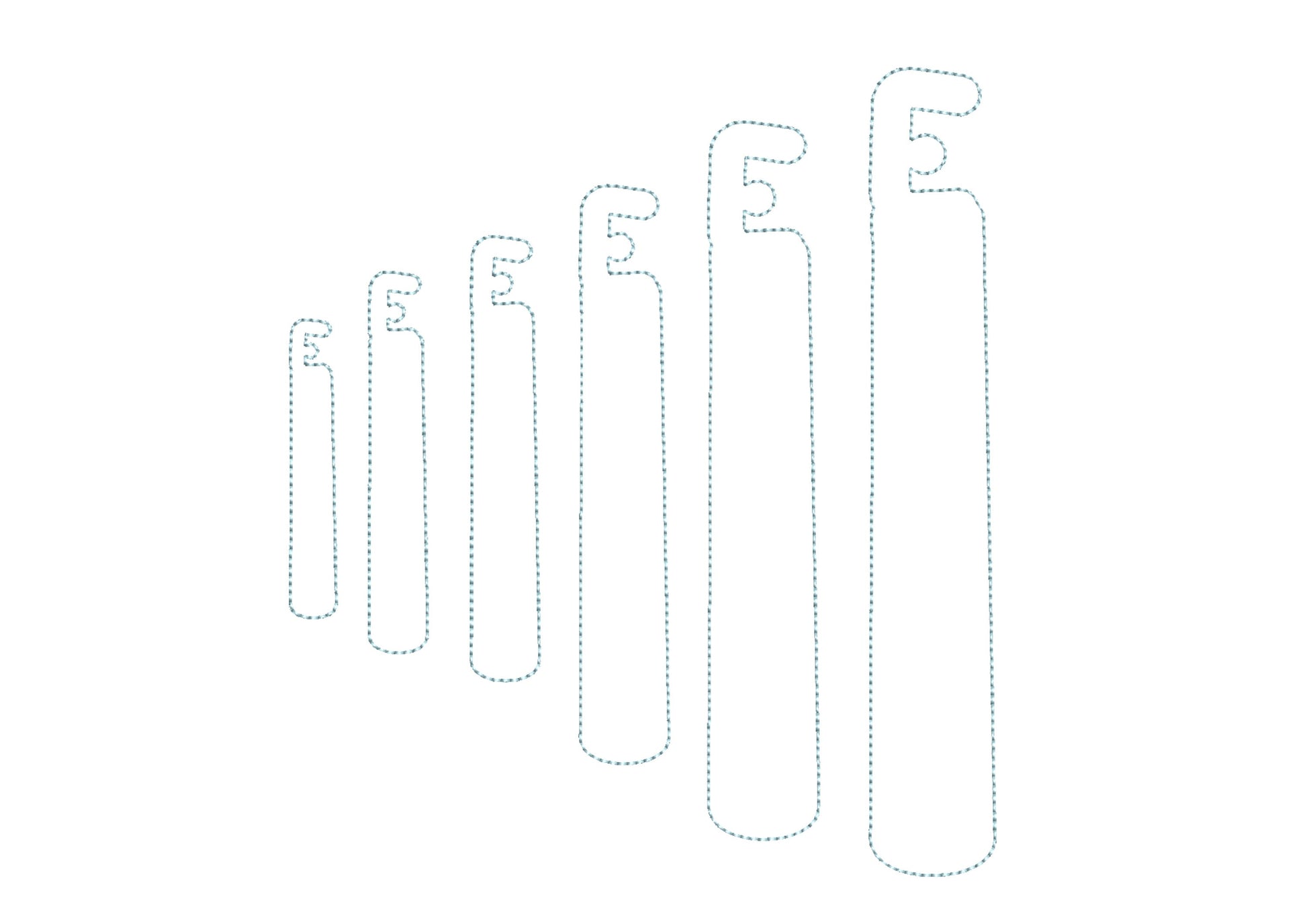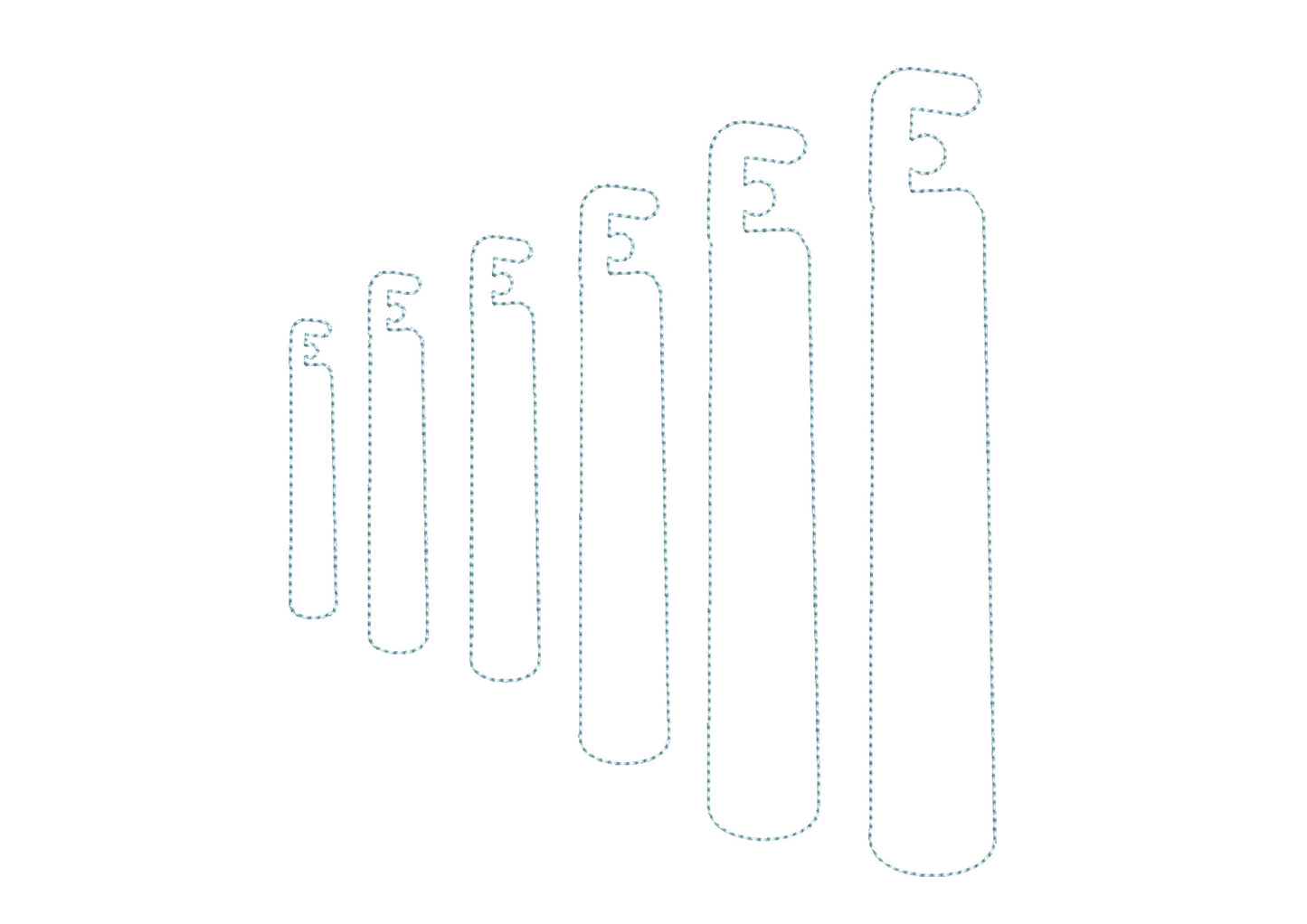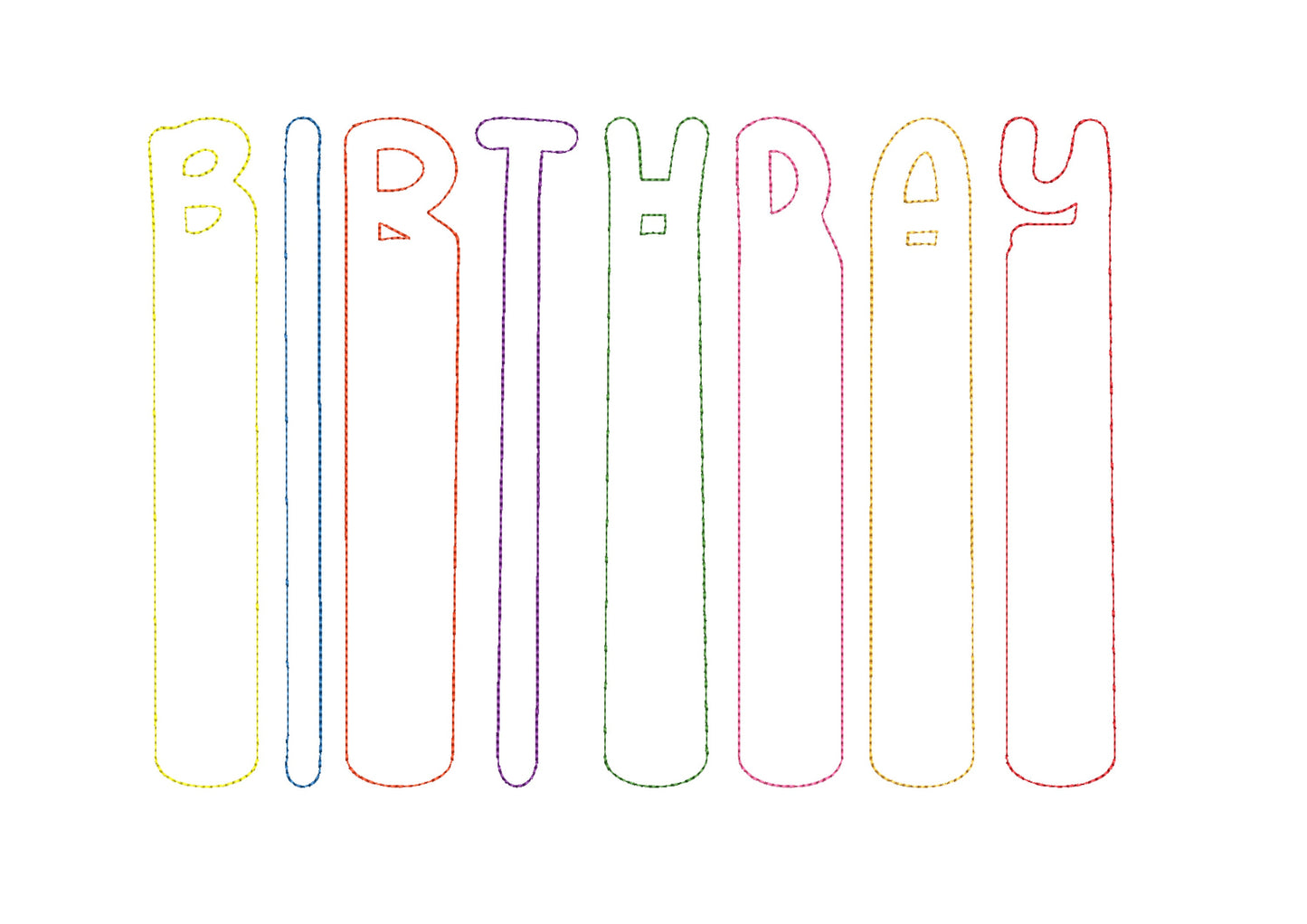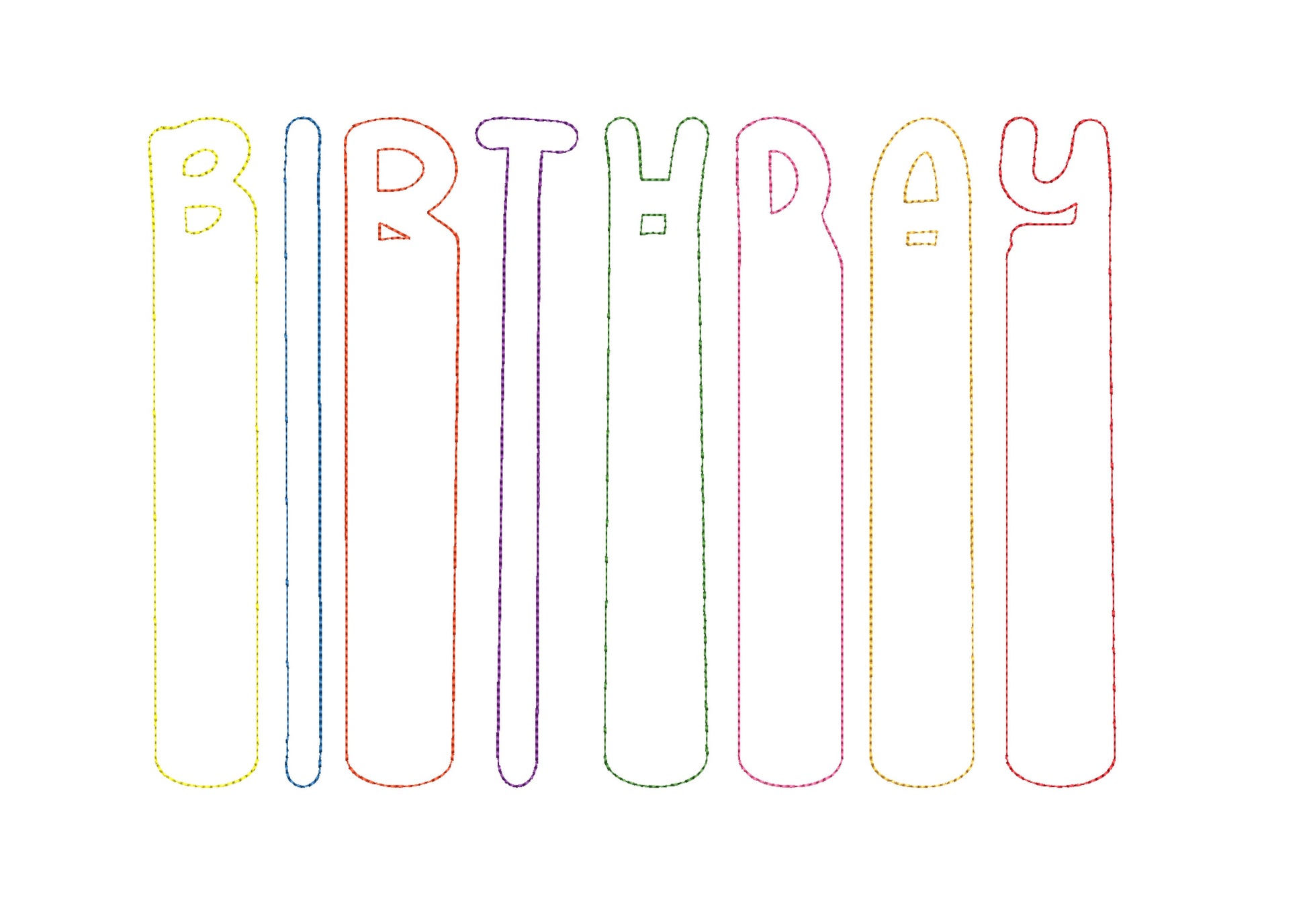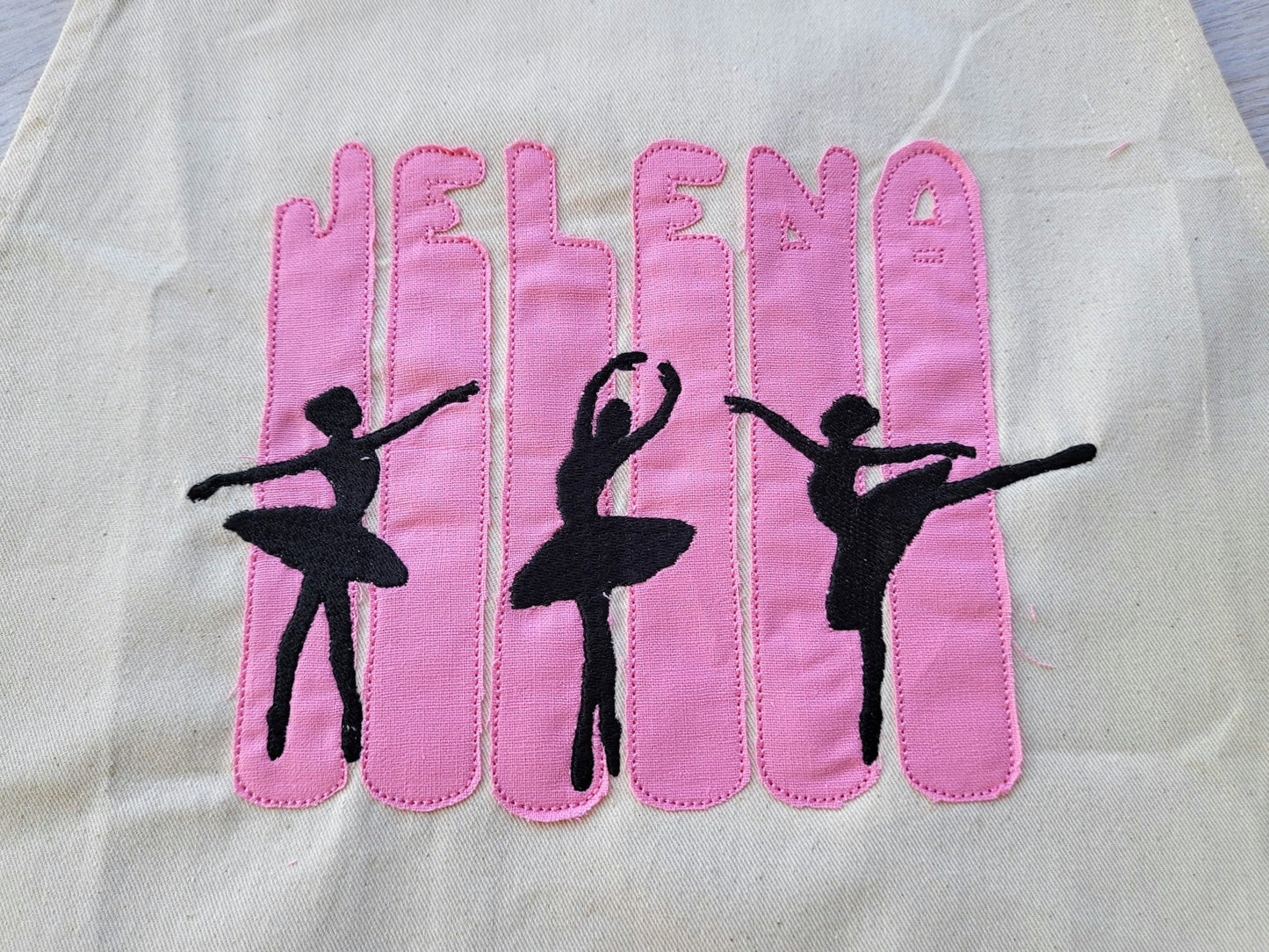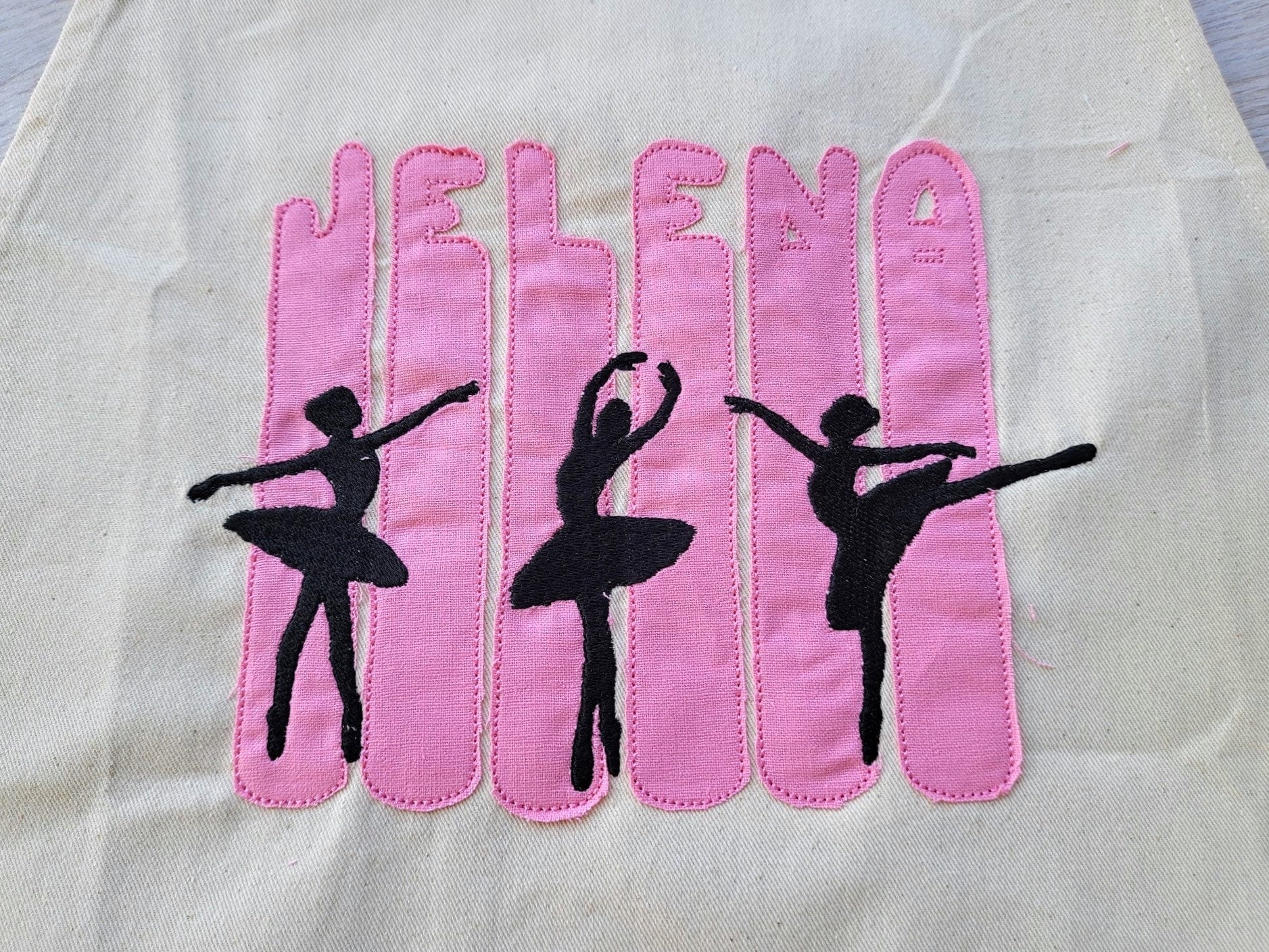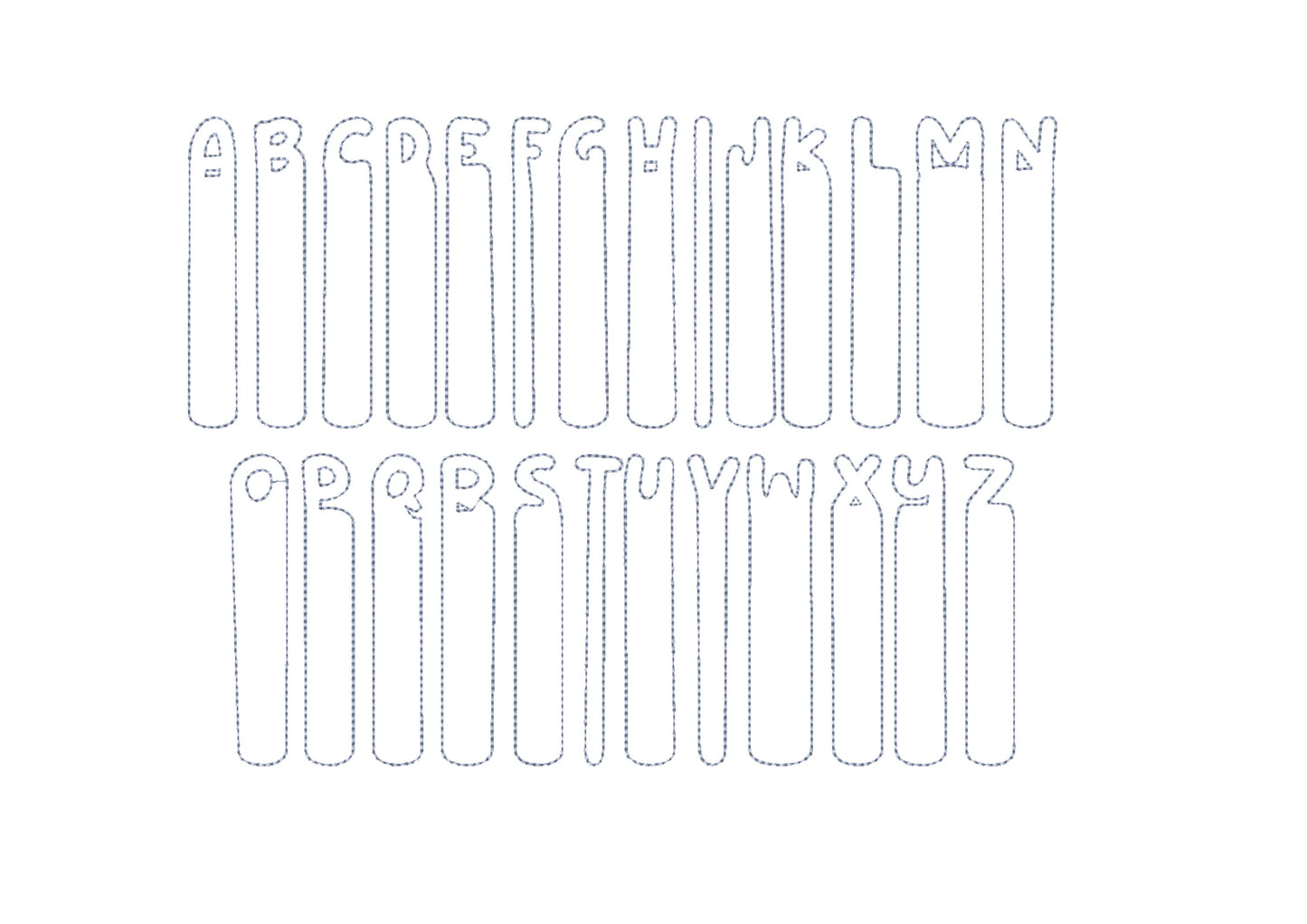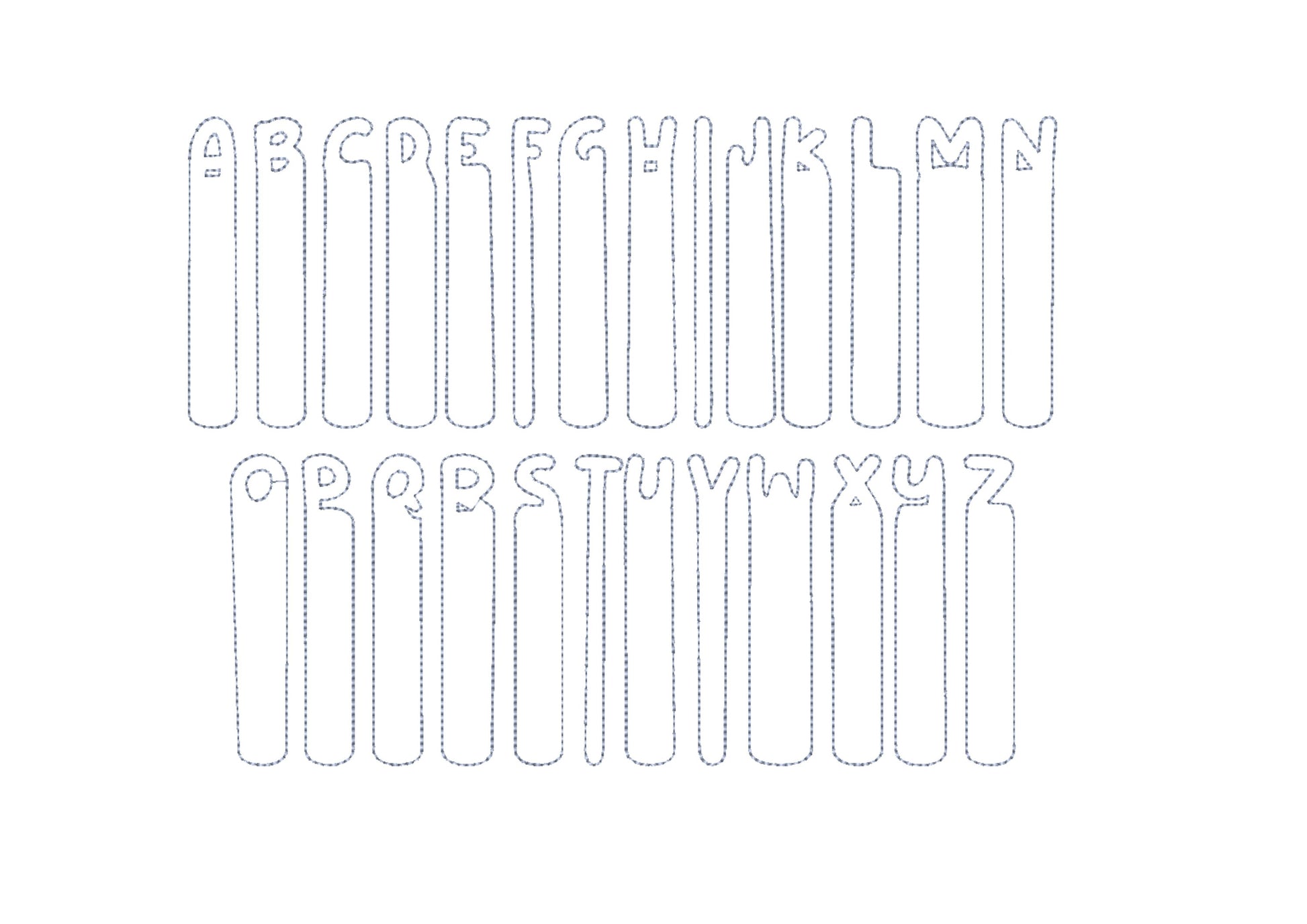
Brush Stroke Painter Font Applique
Or click to open the linkA brush stroke font stitched as raggedy edge applique, like letters painted with a brush. Fun for kids' names, pillows, shirts and bags.
Uppercase letters A to Z and an ampersand in six sizes: 2.5, 3, 4, 5, 6 and 7 inches. The applique edges are left raggedy for a painted look.
- Brush stroke raggedy applique font
- Uppercase A-Z and ampersand
- 6 sizes, 2.5 to 7 in